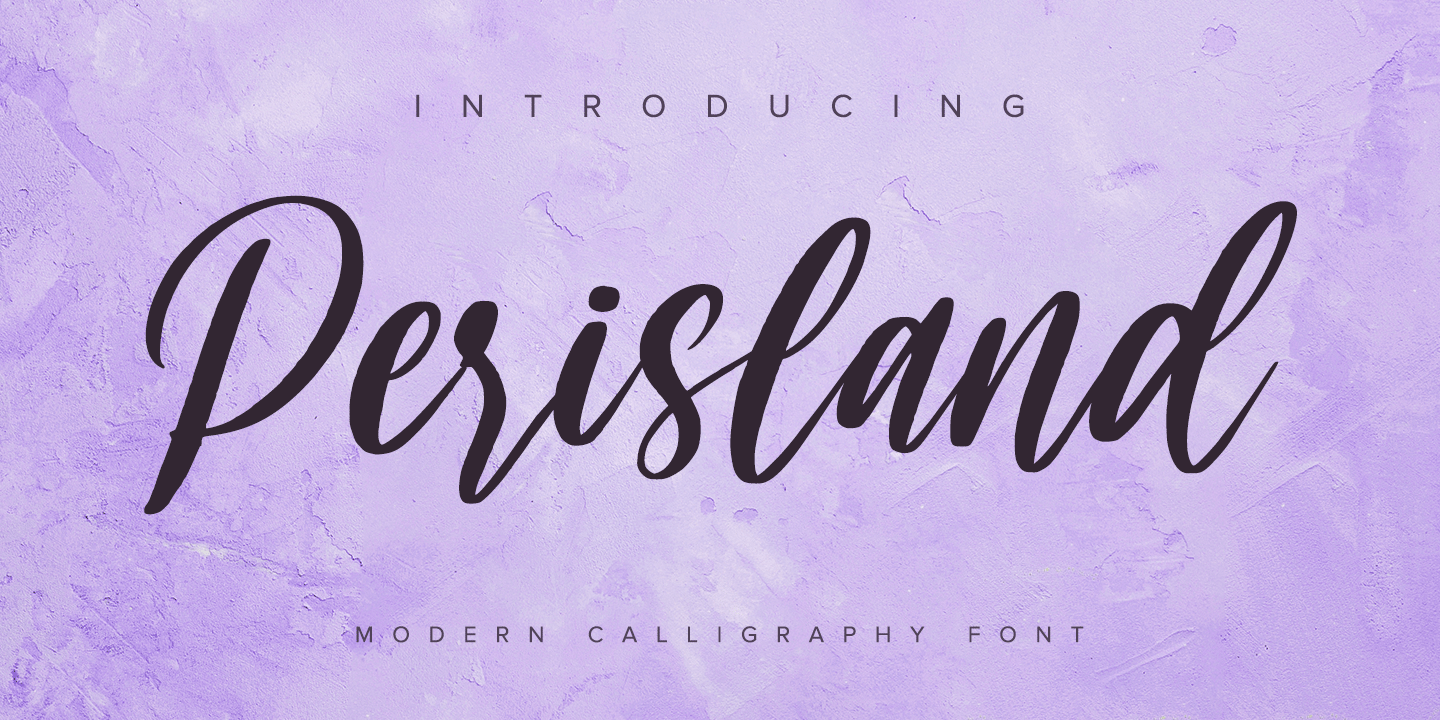
Perisland Font excels in tropical design applications including island resort branding, tropical vacation marketing, beachside restaurant signage, exotic travel agency materials, paradise hotel communications, tropical beverage packaging, island festival promotions, Caribbean tourism campaigns, beach wedding invitations, and sunset cruise advertisements. This paradisiacal typeface brings authentic island charm to vacation-focused design projects.
What makes Perisland Font truly exciting is its perfect capture of tropical serenity with letterforms that evoke palm fronds swaying and crystal-clear waters lapping pristine shores. The font features flowing curves and relaxed proportions that suggest gentle ocean breezes and endless summer days while maintaining excellent readability. Its tropical character and island authenticity make it ideal for brands celebrating vacation experiences, exotic destinations, and audiences seeking escape from daily routine, tropical adventures, and the rejuvenating peace of island paradise living.
The Perisland Font family typically includes Regular weight with potential stylistic alternates and tropical decorative elements that enhance its island character. These paradisiacal options provide designers with complete tropical styling while maintaining the font's distinctive vacation elegance and exotic presentation across various tourism applications and tropical contexts.
Whether you're developing tourism branding, creating vacation campaigns, or designing tropical marketing materials, Perisland Font Free Download delivers the island authority and exotic sophistication that paradise projects require. Its exceptional tropical appeal and vacation authenticity make it invaluable for designers working with resort companies, travel agencies, and tropical-focused businesses requiring typography that celebrates island culture, vacation relaxation, and the timeless appeal of tropical destinations that offer escape, adventure, and the perfect blend of exotic beauty and peaceful serenity.